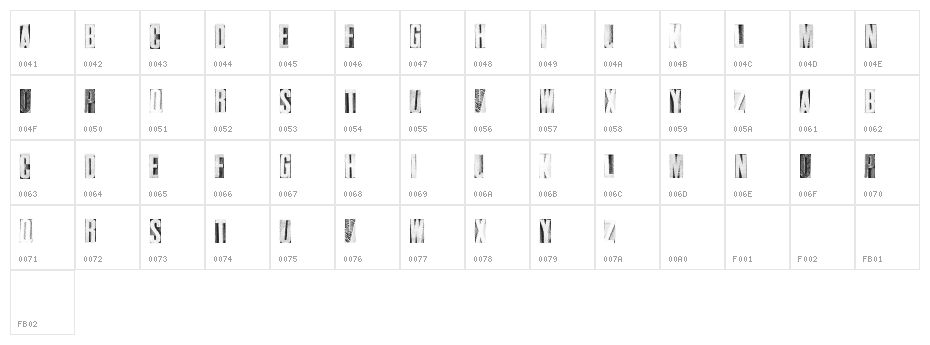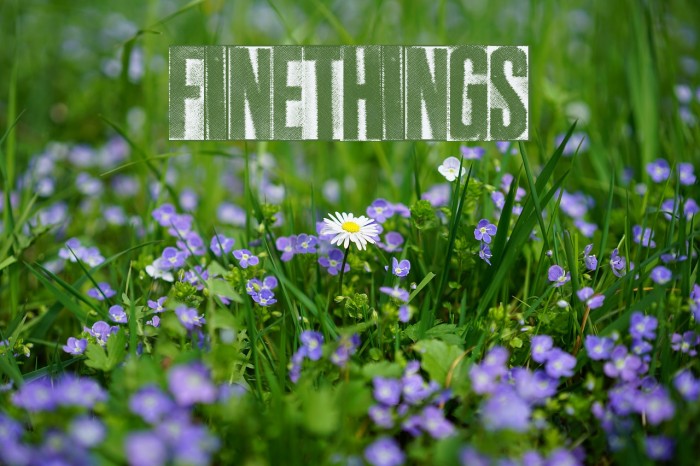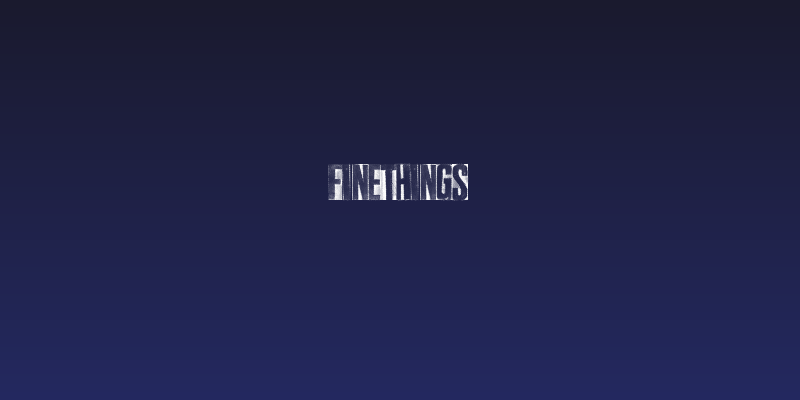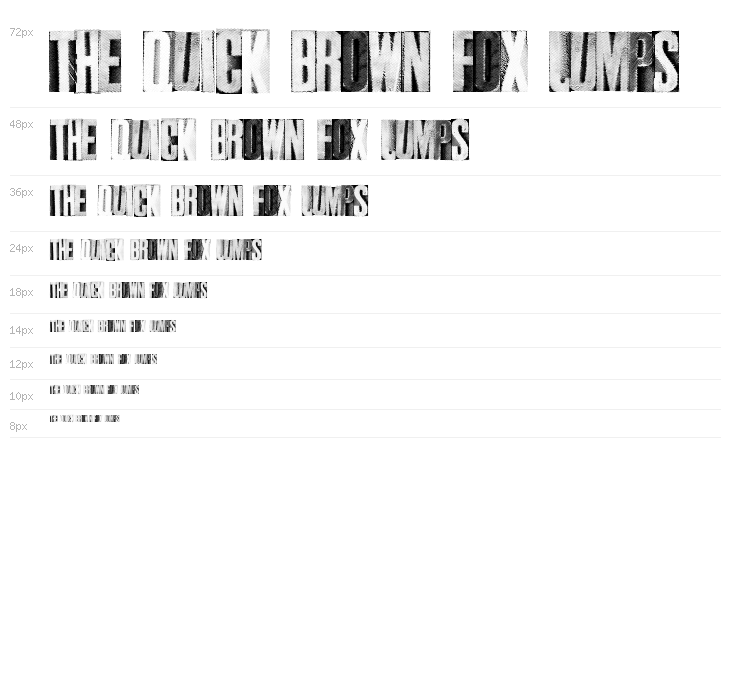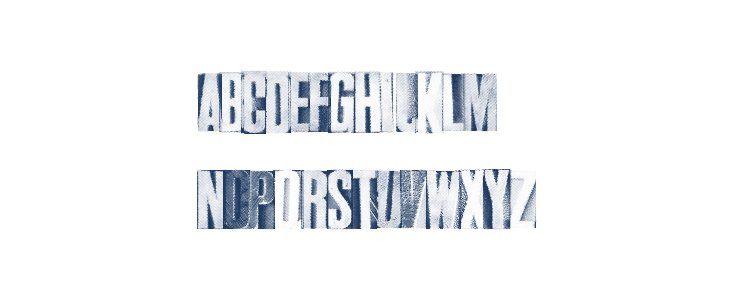
FineThings Font
FineThings Description
This font features a bold and impactful design with a strong emphasis on vertical lines and sharp angles. The uppercase letters are tall and commanding, with a slight 3D effect that gives them depth and presence. The characters are tightly spaced, enhancing the boldness and making it ideal for attention-grabbing headlines. The font has a modern and industrial feel, suitable for projects that require a strong visual impact. The absence of lowercase letters and numbers suggests a focus on uppercase usage, further emphasizing its suitability for titles and logos.
| Proposed Projects | Ideal for headlines, logos, posters, and any design requiring a strong visual impact. |